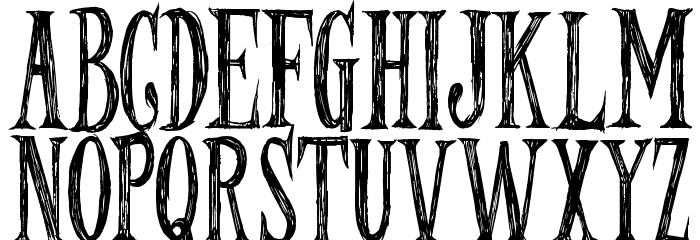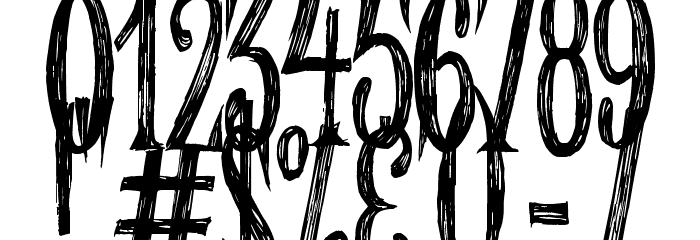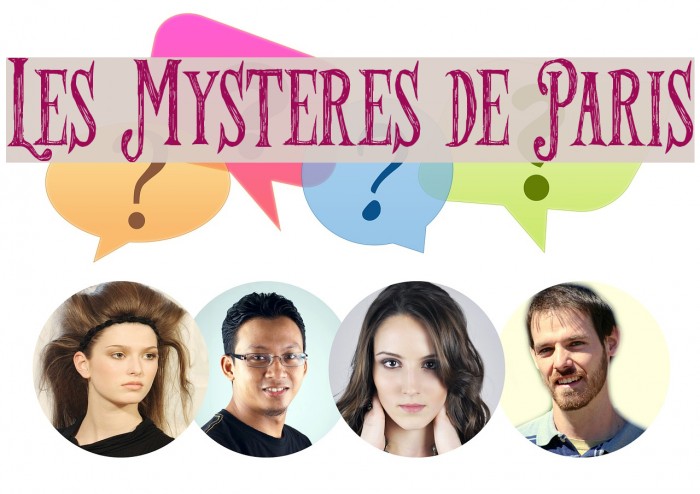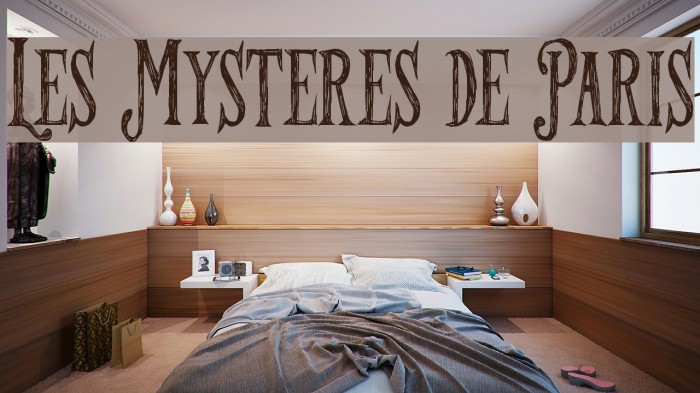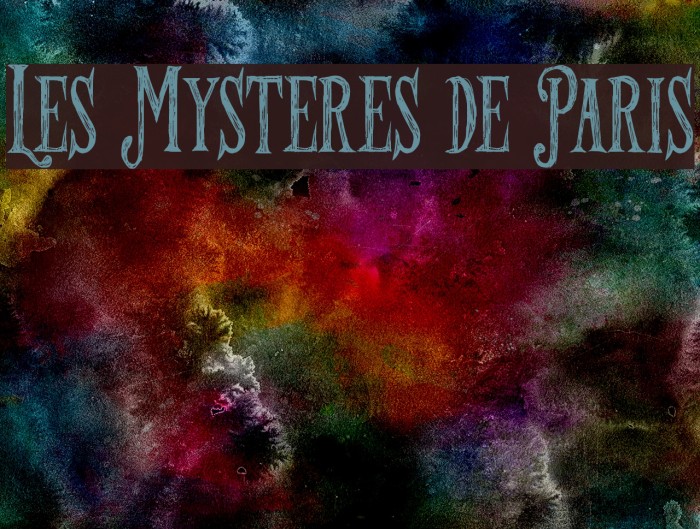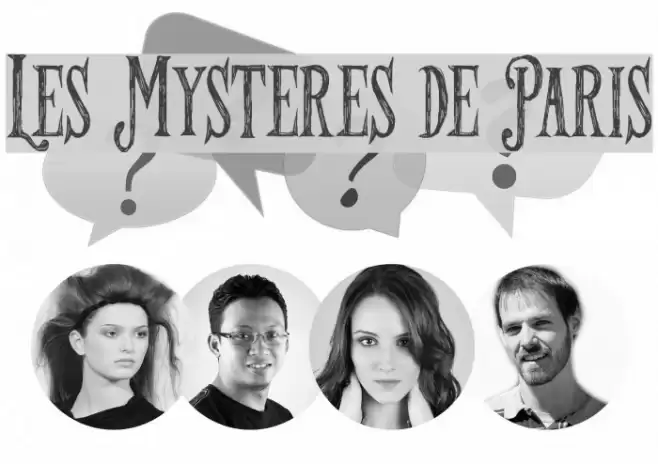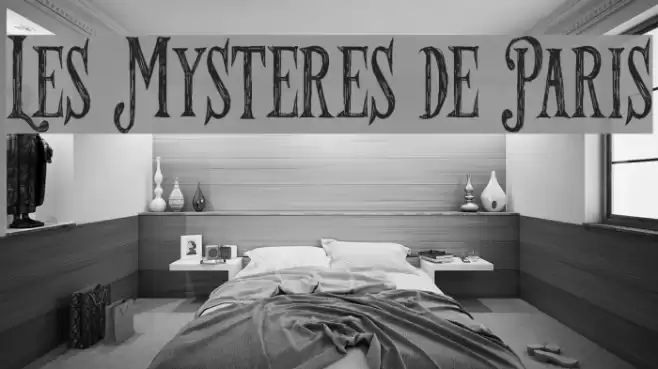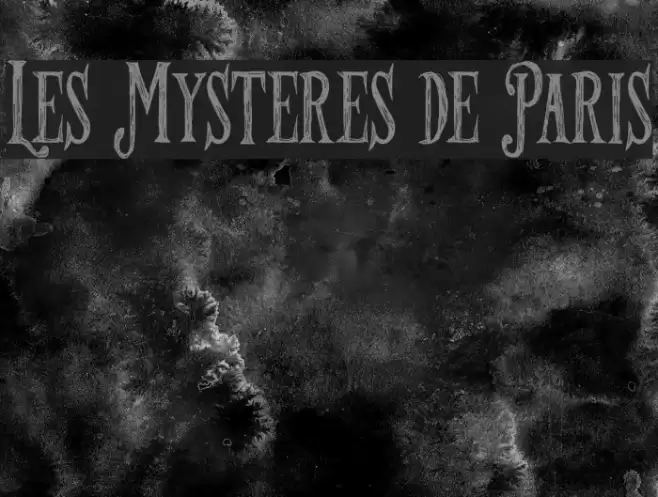
Les Mysteres de Paris Font
This font exudes a vintage and decorative style, characterized by its intricate and distressed appearance. The letters are bold and feature a textured, almost hand-drawn quality that gives them a unique, rustic charm. The uppercase letters are particularly ornate, with elaborate serifs and flourishes that add to the overall decorative feel. The numbers and special characters maintain this stylistic consistency, ensuring a cohesive look across all glyphs. This font is perfect for projects that require a touch of old-world elegance and artistic flair.
A vintage, decorative font with a distressed, hand-drawn appearance.
- Font: Les Mysteres de Paris
- Proposed Projects: Ideal for vintage-themed posters, book covers, and branding projects that require a distinctive, artistic touch.
- Overall Style: Vintage, Decorative